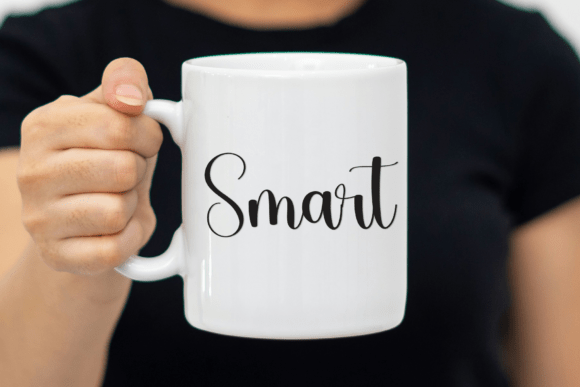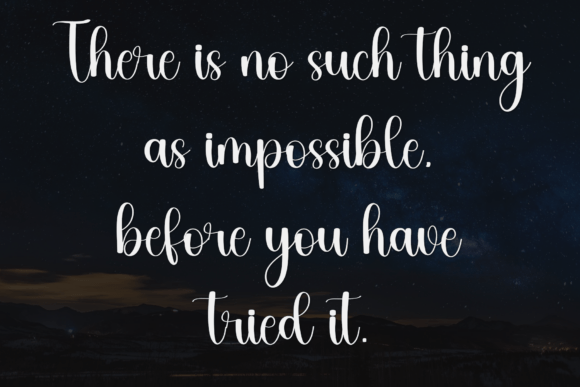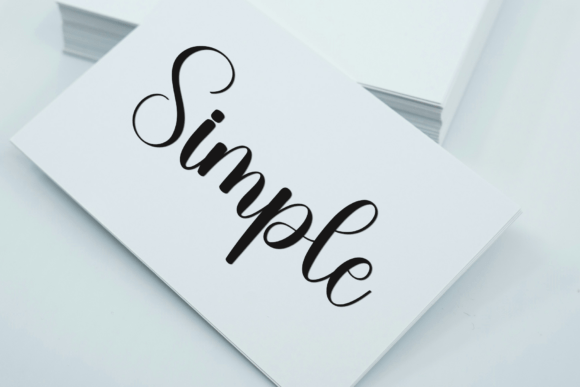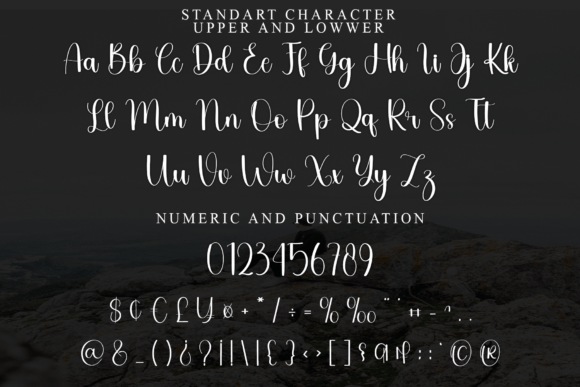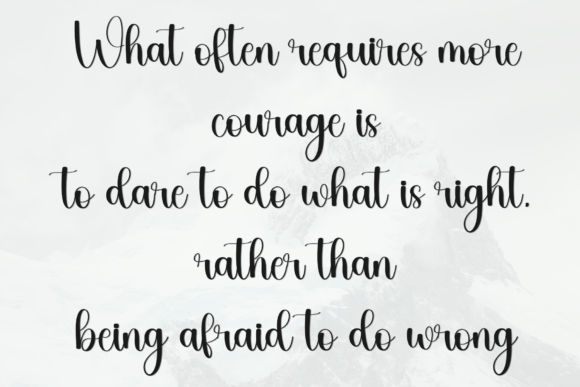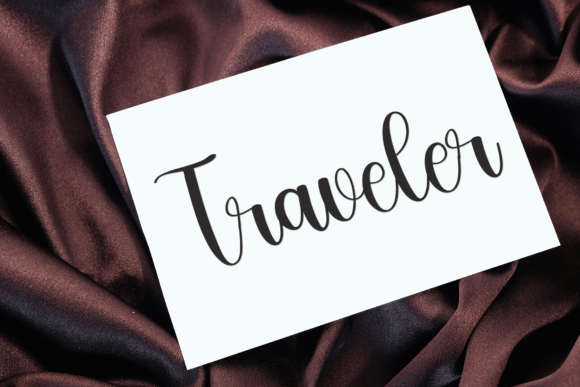
The Charming World of Cherris Font
I’ll never forget the time I was working on a project for a client’s birthday party invitation. I had the design concept all sorted out, but I was stuck on finding the perfect font. I wanted something that exuded warmth, friendliness, and a dash of playfulness. That’s when I stumbled upon Cherris Font, and it instantly became the perfect fit. In this article, I’ll share my experience with Cherris Font, its features, and how to make the most of it in your designs.
A Personal Review of Cherris Font
What I Love About Cherris Font
- ✨ Warm and Friendly Aesthetic: Cherris Font has a unique, hand-drawn charm that adds a personal touch to any design.
- ✅ Easy to Read: The font’s round, playful strokes make it easy to read, even in smaller sizes.
- 💡 Versatile: Cherris Font is perfect for personal projects, invitations, social media graphics, and more.
While Cherris Font is an excellent choice for many design projects, there are a few things to keep in mind:
- ⚠️ Limited Formality: Cherris Font is a casual font, so it might not be the best choice for formal or professional projects.
The Story Behind Cherris Font
Cherris Font was designed with the intention of creating a friendly and approachable typeface. The designer, inspired by the warmth and playfulness of handwritten fonts, crafted Cherris Font to be a versatile and charming addition to any design project. With its unique blend of modern and traditional elements, Cherris Font has become a popular choice among designers and crafters.